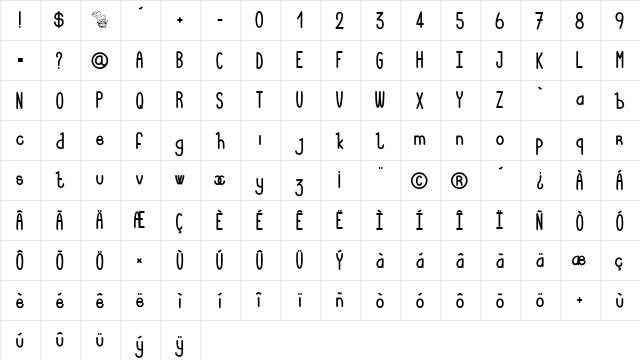
Lucie Mandragore Regular
| Foundry | dcoxy Medina Gregory |
| Designer | dcoxy Medina Gregory |
Design Context for Lucie Mandragore Typeface
Lucie Mandragore leans into the macabre with letterforms designed to disturb and intrigue in equal measure.
Ideal for Halloween projects, horror film titles, haunted house signage, and dark editorial design.
Font Pairing: Pair with a clean neutral sans-serif for body copy to let Lucie Mandragore's character lead without overwhelming the composition.
Pro Tip: Lucie Mandragore works best as a headline or focal element. Pair it against plain, neutral body text to amplify the contrast.